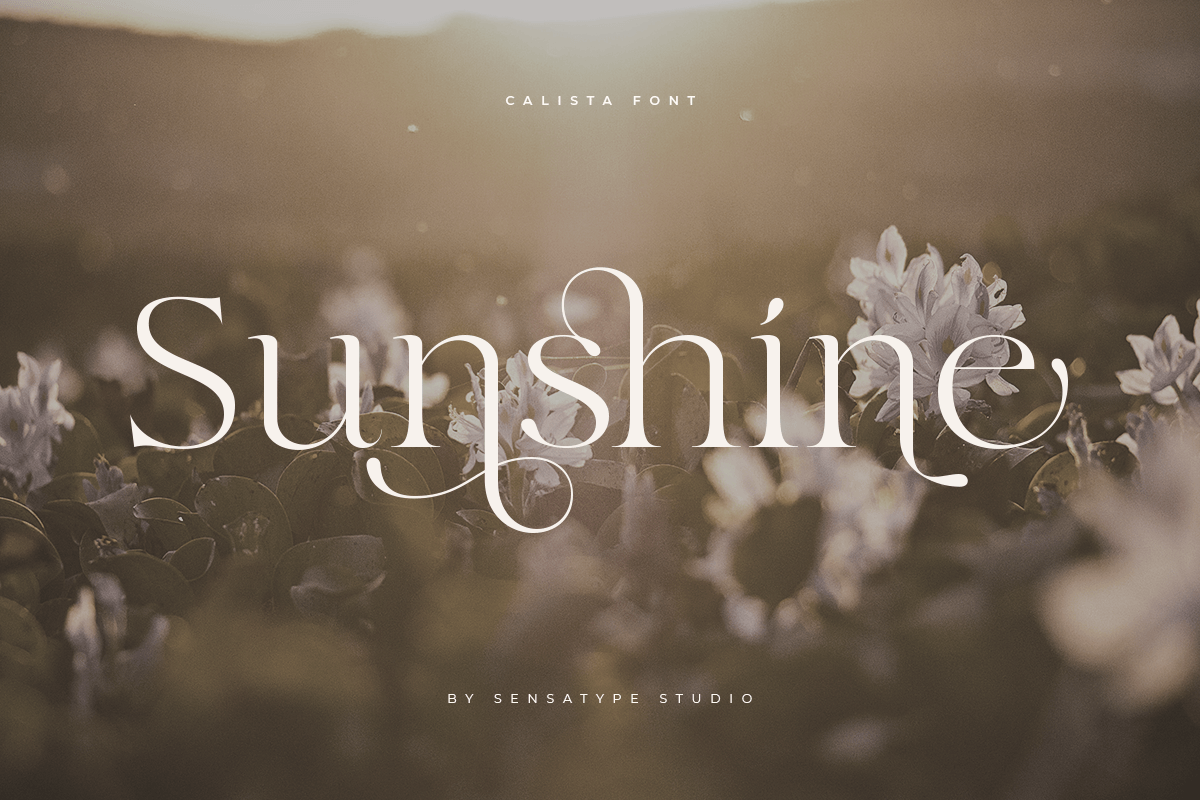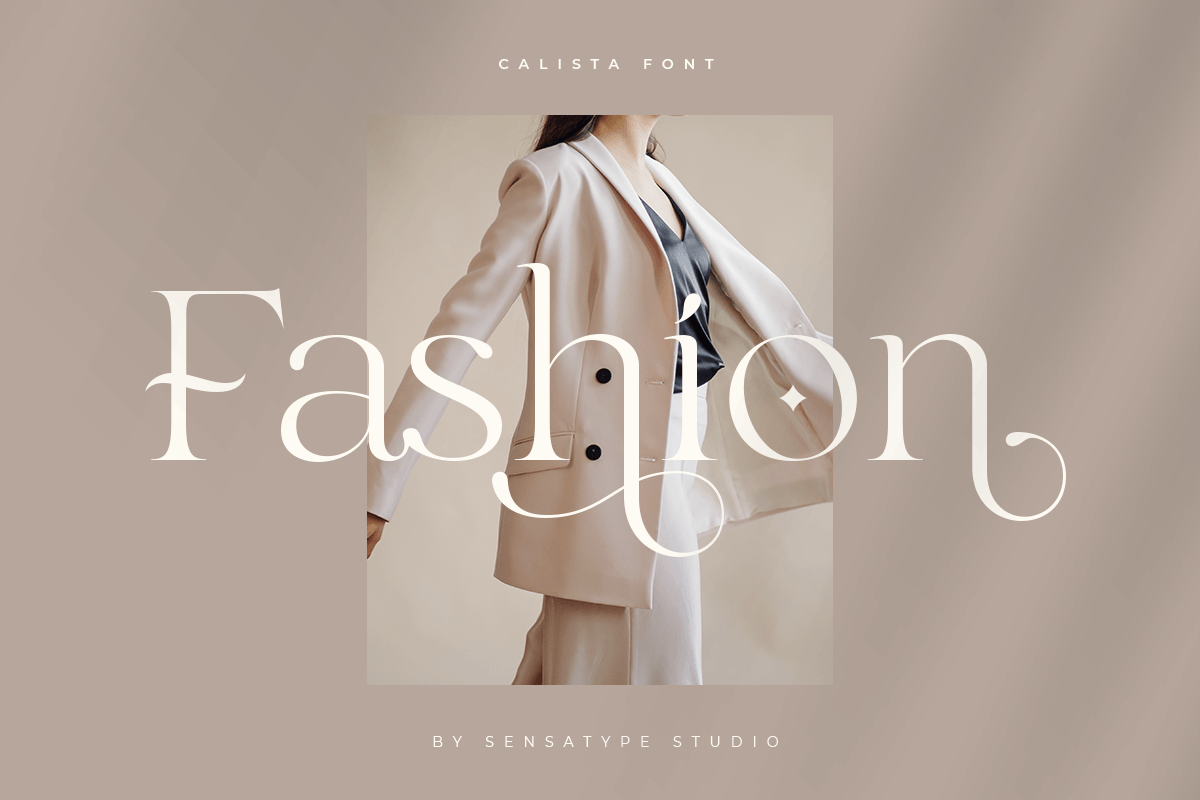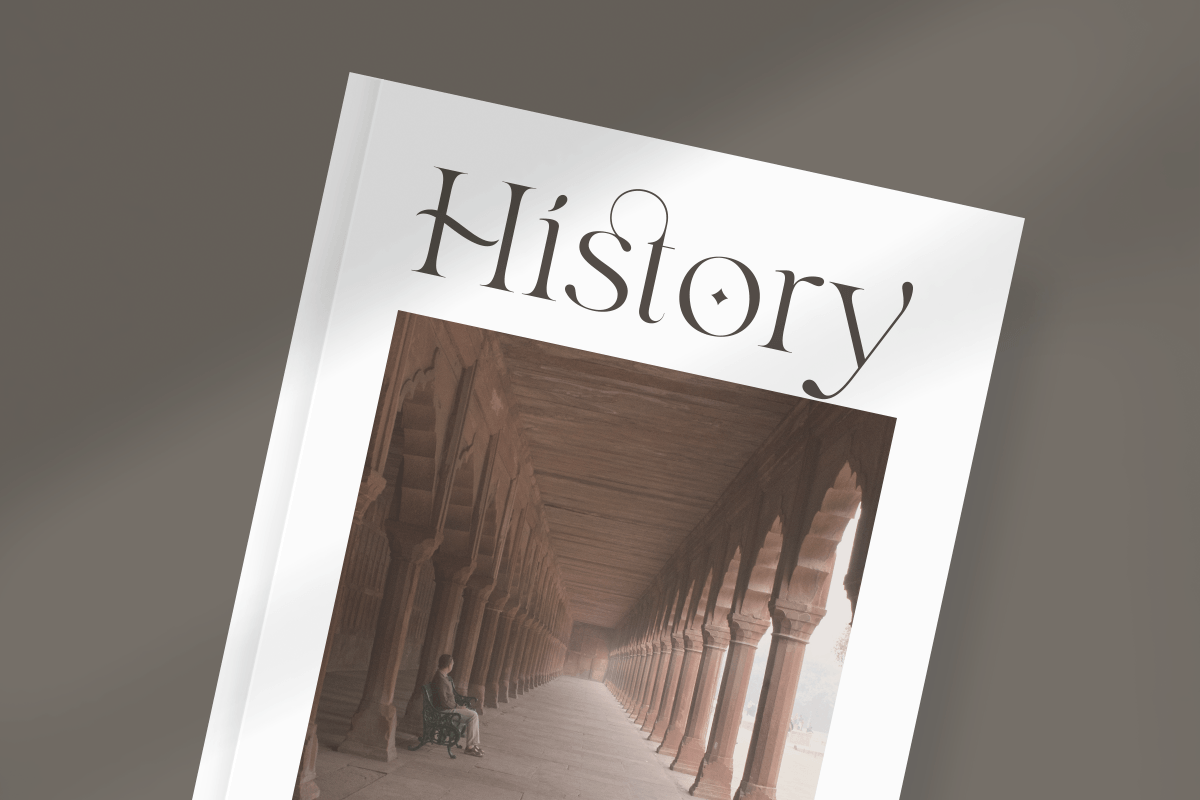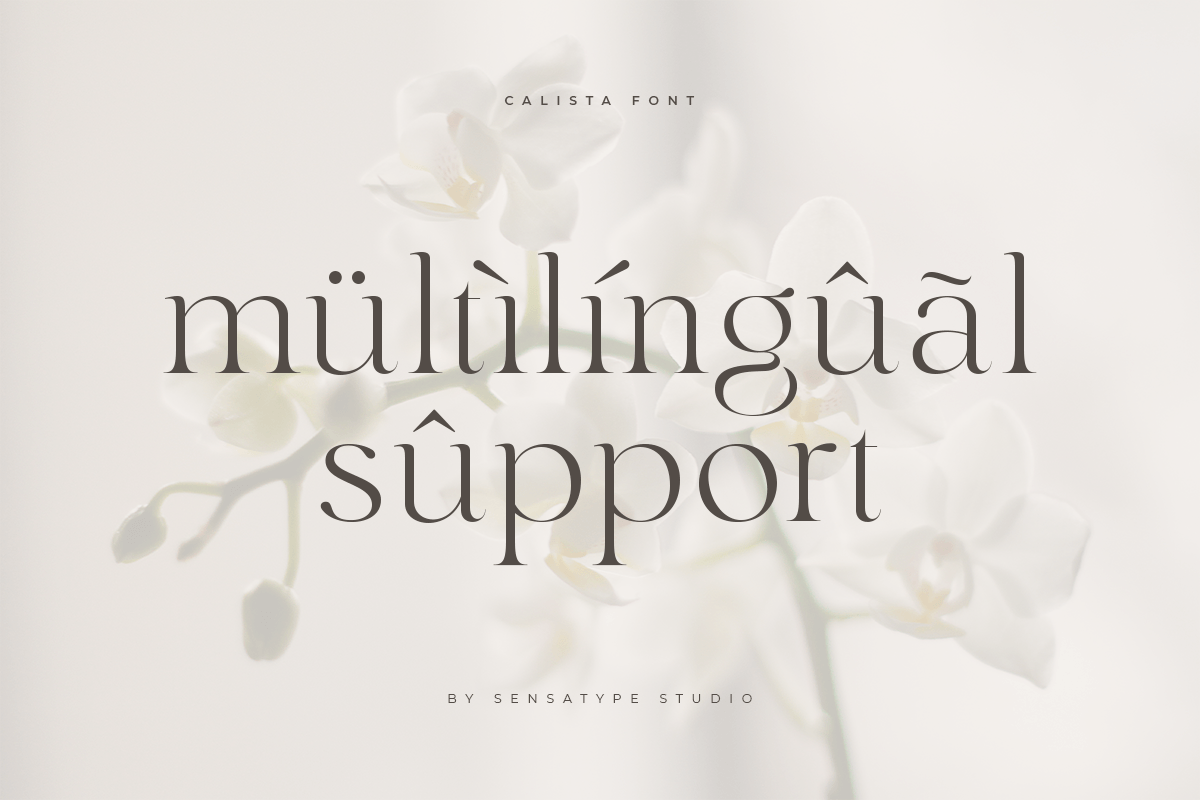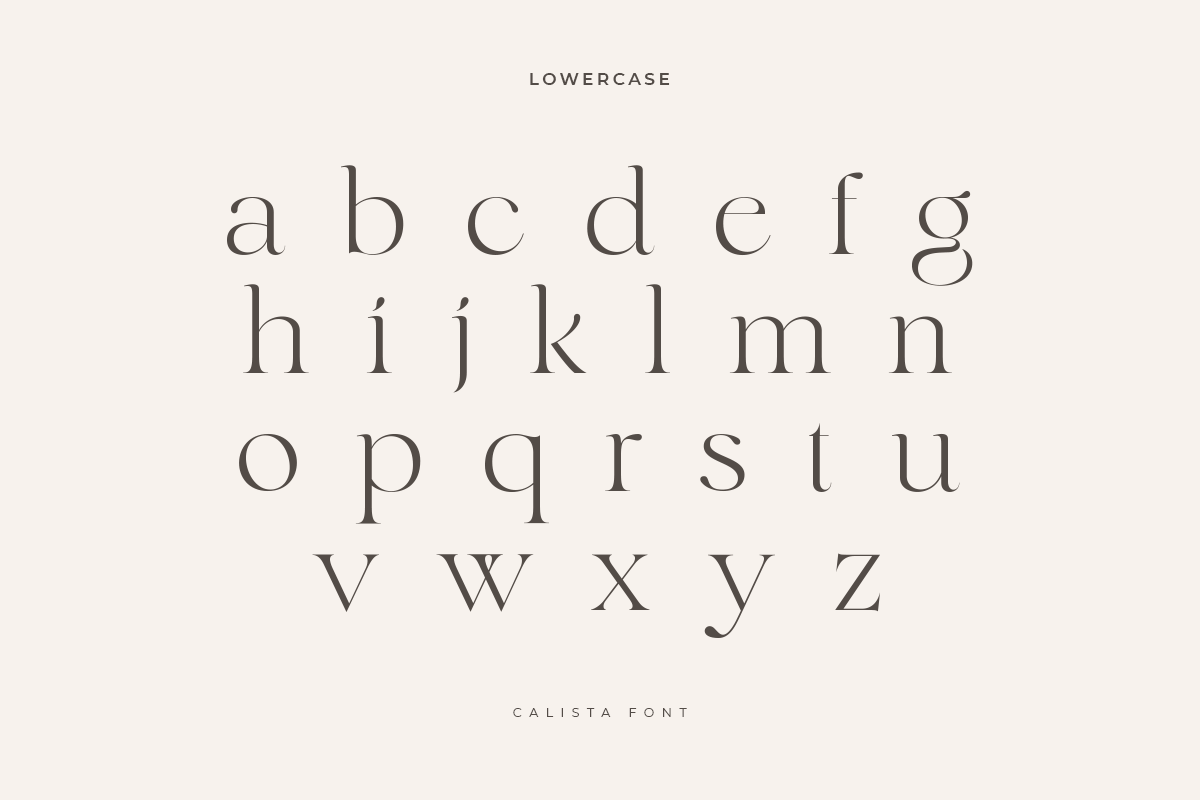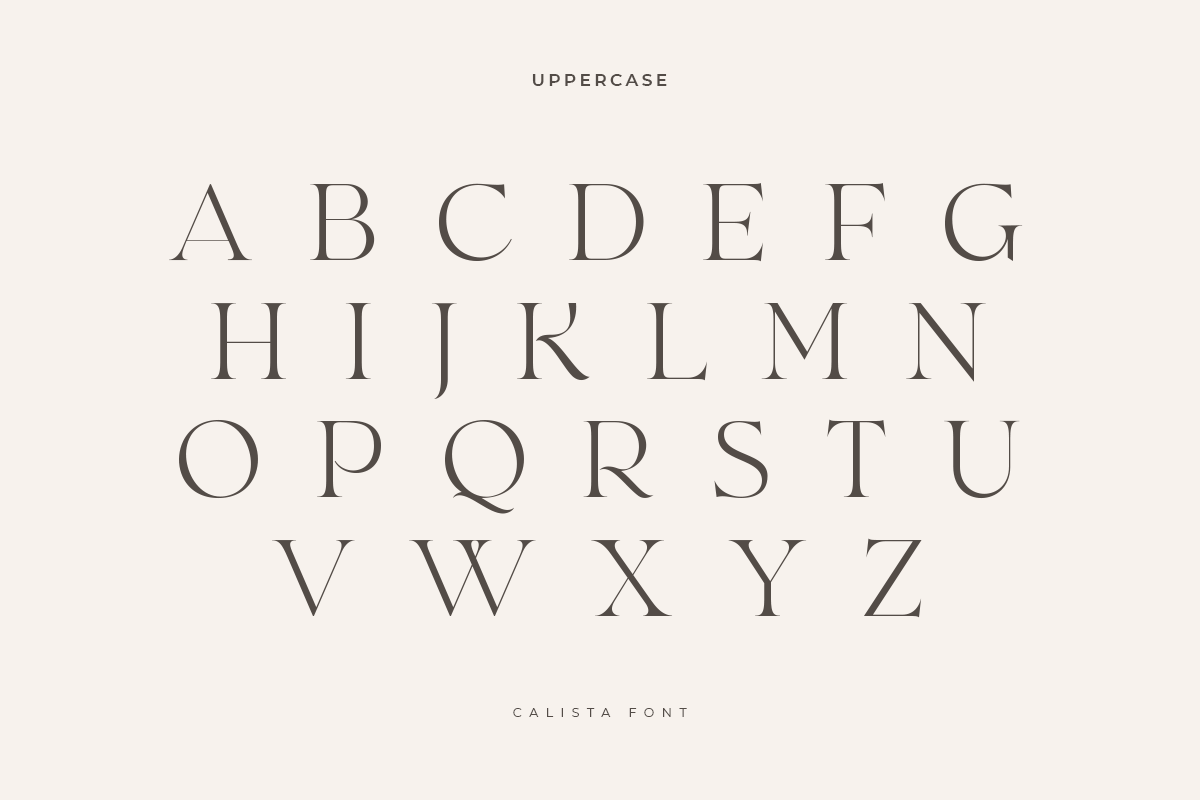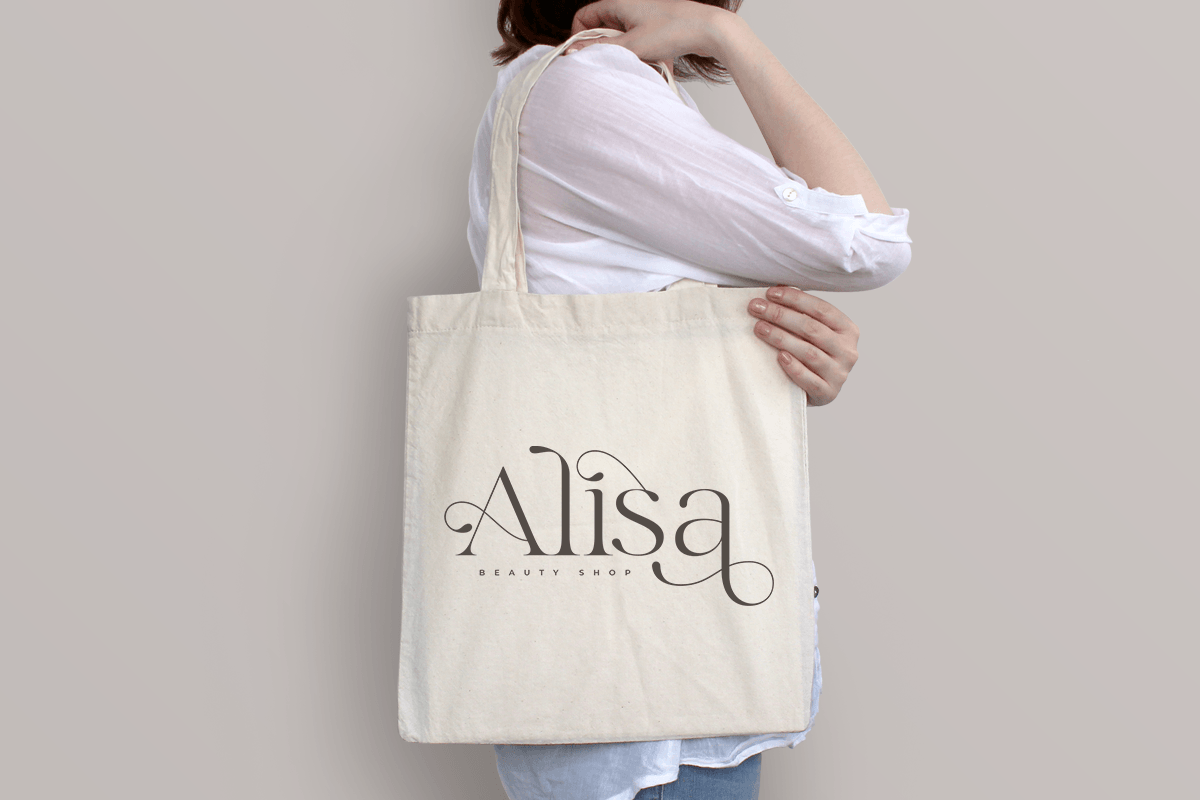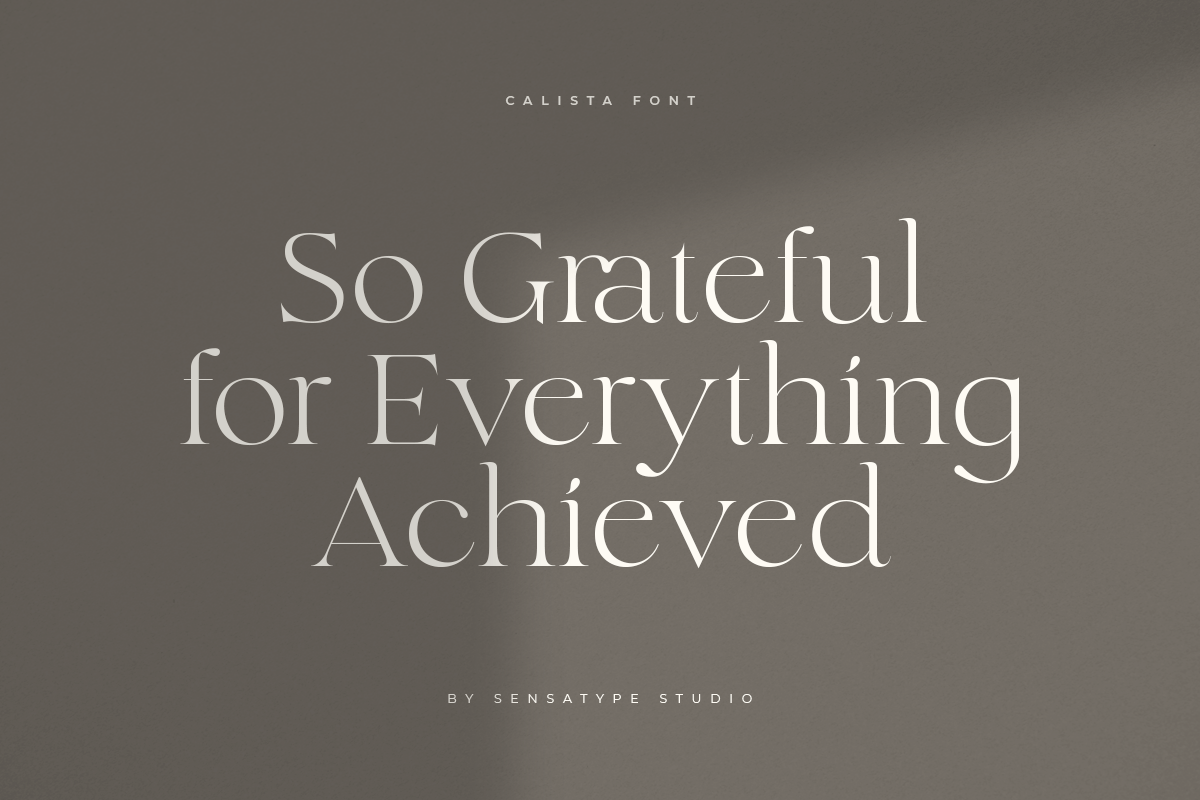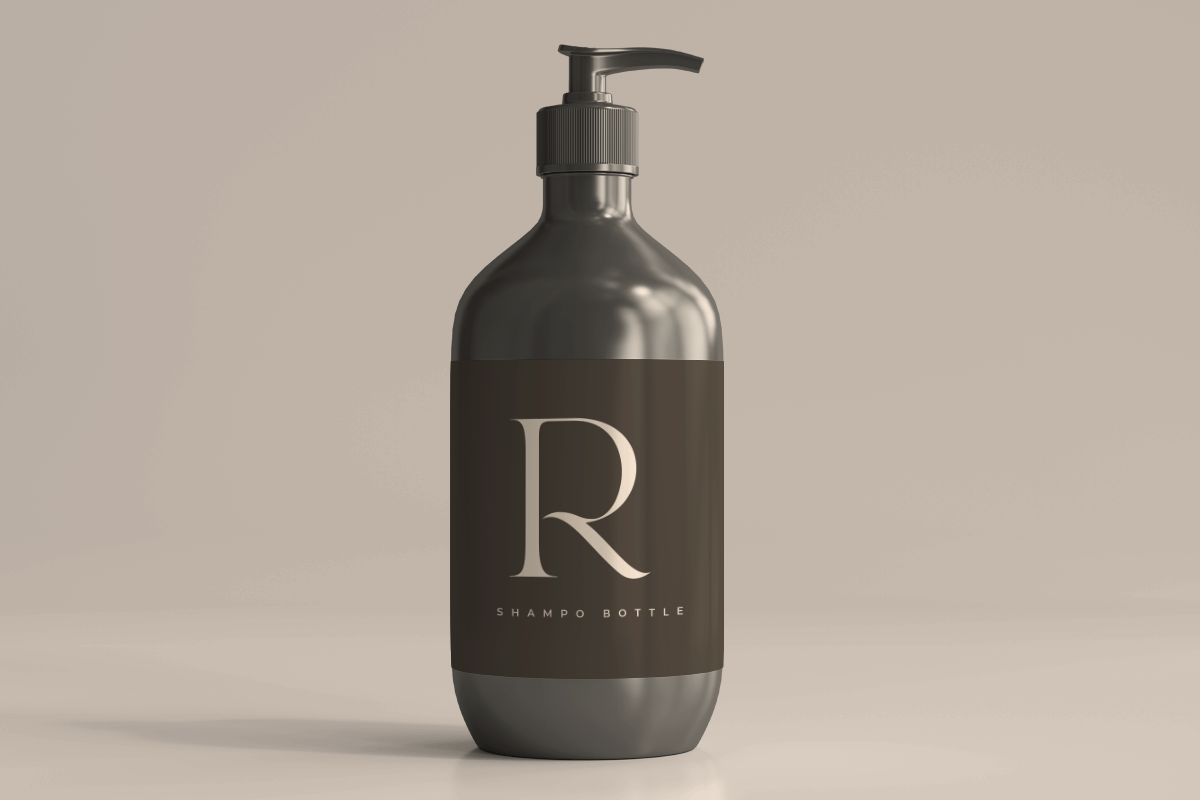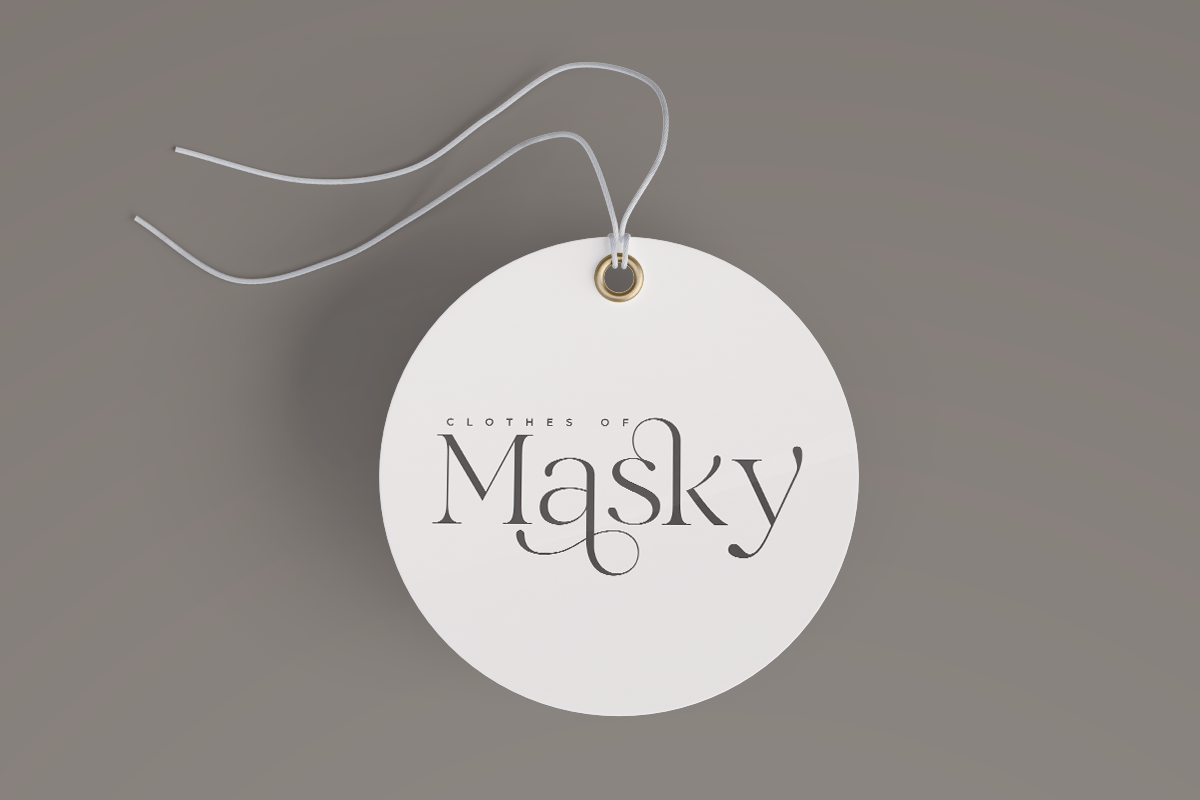
Calista
-Classy Elegant Font
A serif that we created special for elegant branding needs, with extra ligature and alternates in unique shape will be ready to add value of your brand. It so nice to leverage designer or product owner that need solutions to make their design look more classy and modern. And specially for Calista font, We prepared any ligatures, and any alternate characters to help you create unlimited variations for your creative needs.